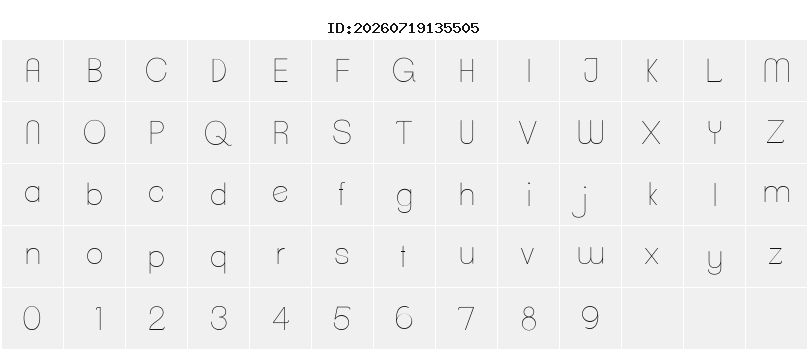
ClementePDaa Preview
• Font Name: ClementePDaa
• Font Style: Hairline
• Manufacturer: Prescott Design
About ClementePDaa.ttf
ClementePDaa.ttf is a modern, elegant sans-serif font designed for ultimate readability and visual harmony. Perfect for branding, headlines, web design, and print materials.